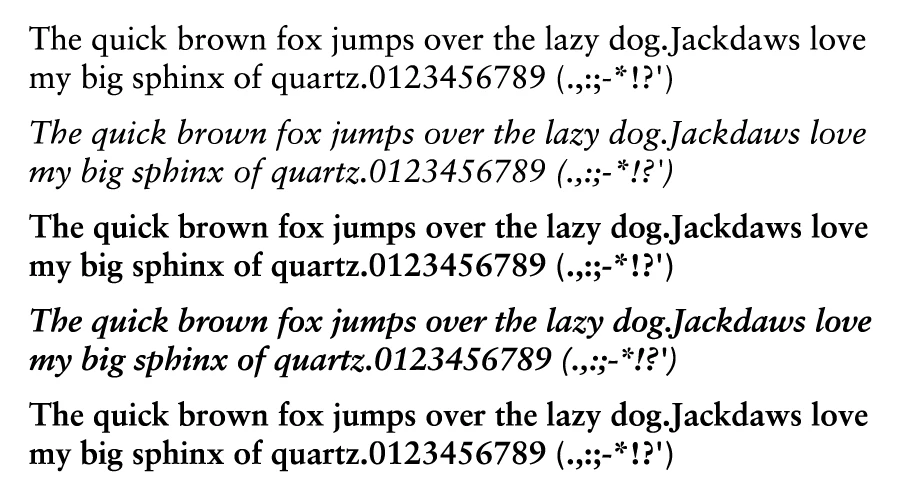
Sabon is an old-style serif typeface designed by the German-born typographer and designer Jan Tschichold in the period 1964–1967. It was released jointly by the Linotype, Monotype, and Stempel type foundries in 1967. A classic typeface for body text, Sabon’s longstanding popularity has transcended its origin as a commission to fit a tight set of business requirements.
The design was influenced by the types of Claude Garamond with the italic taking inspiration from Robert Granjon, a contemporary of Garamond’s. It’s a quintessential body text serif that is popular in book design, however, it doesn’t seem to be used much on the web.
- Official work: Sabon is perfect for official documents and printing. You can easily use it in your official documents and printing purposes.
- On Design: Sabon is good for combining your design work with a clear line and a circle with several different weights. You can use it for posters, magazines, fashion design, or outstanding packaging and also as a title on a blog or magazine page.
- Logo: This font is made for logo design. People like this type of elegant font for logos.
| Name | Sabon Font |
| Style | Oldstyle serif. |
| Designer | Jan Tschichold. |
What type of font is Sabon Font?
Ans: Sabon is an old-style serif typeface designed by Jan Tschichold.